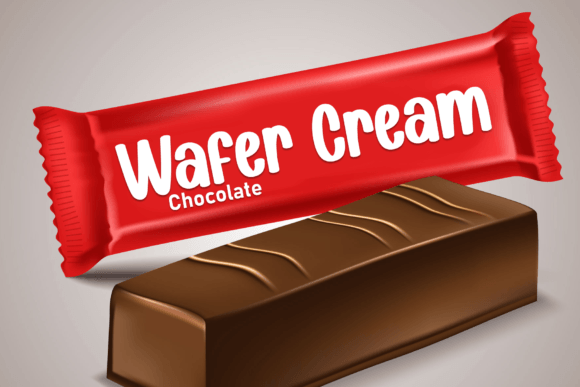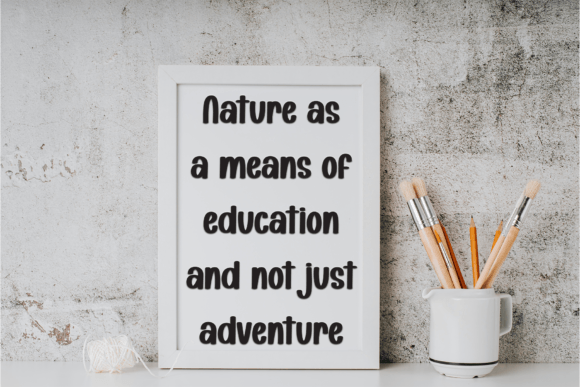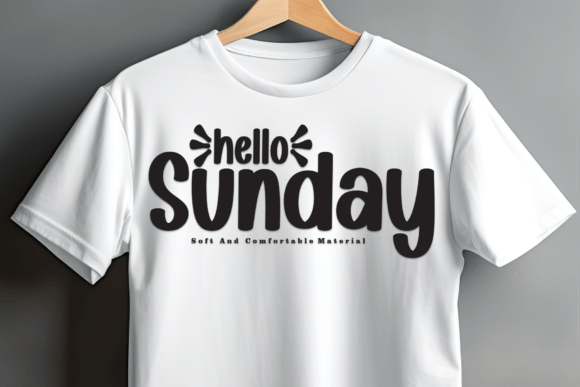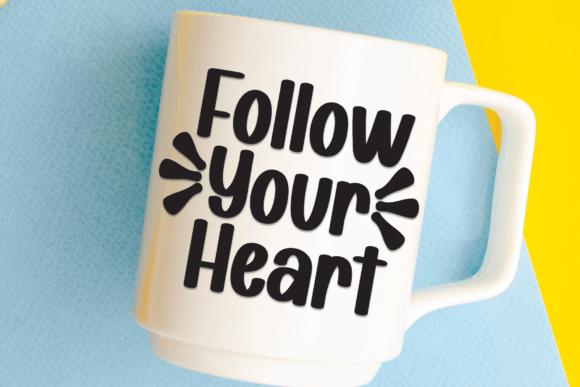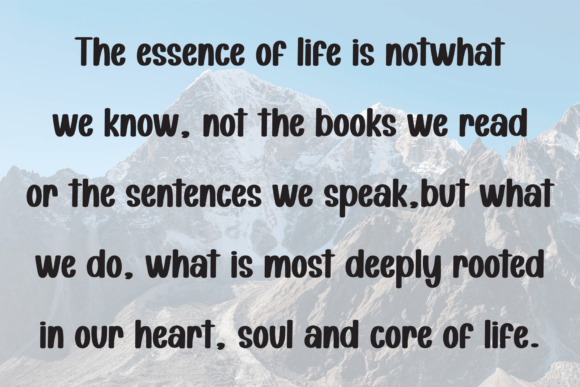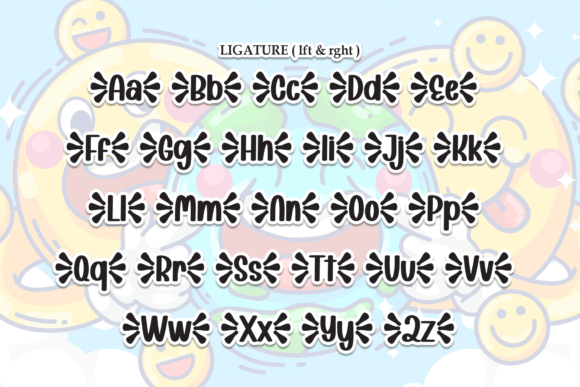
Introduction to Funny Days Font
Funny Days is a gorgeous and bold handwritten font, crafted to give your headlines and logotype projects a stylish touch.
This font reads as strong, confident, and dynamic and can add tons of nostalgic character to your designs .